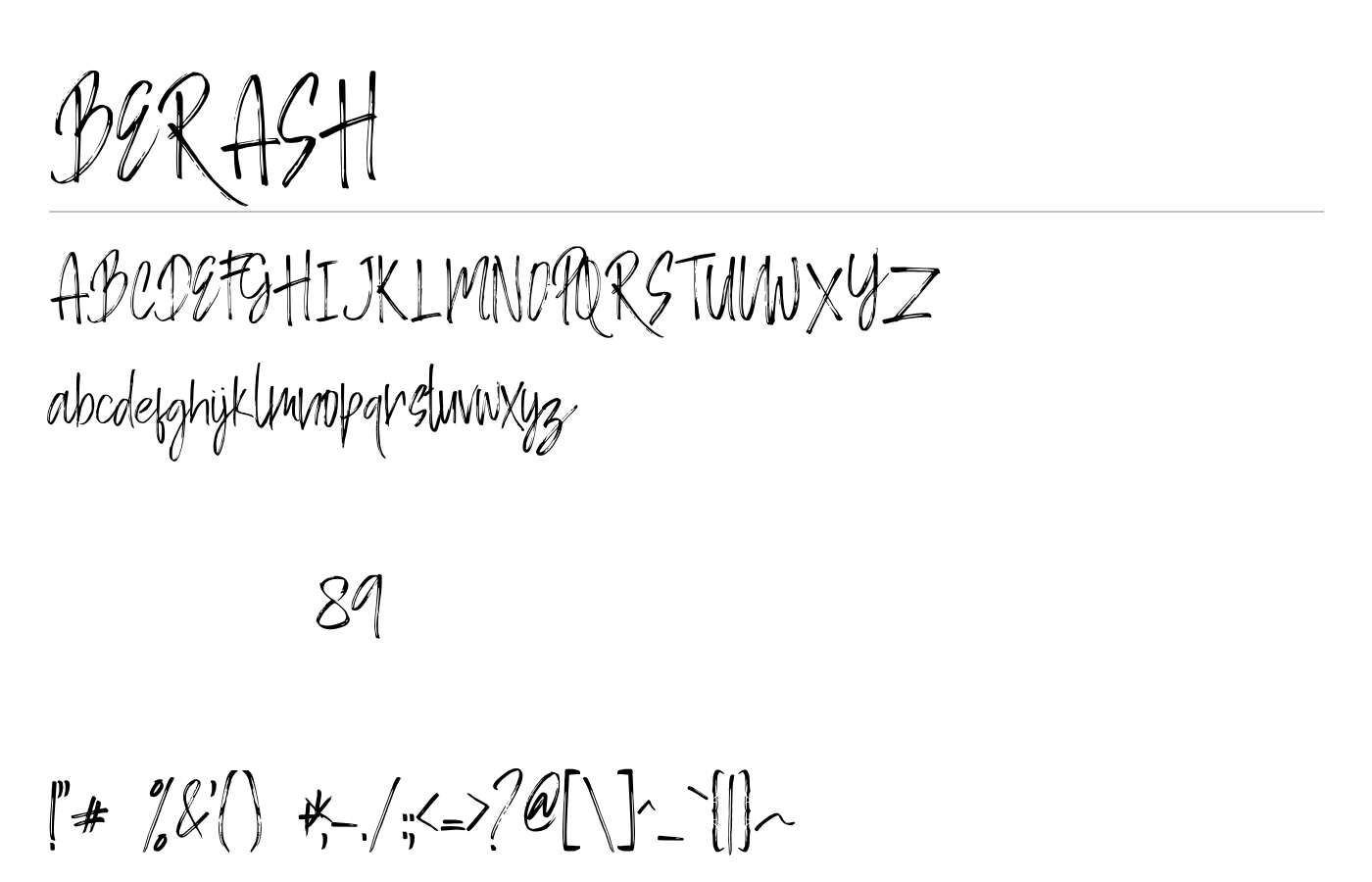
BERASH is a lively, handwritten script font with a tall, narrow structure and high contrast between thin and thick strokes, giving it an energetic and artistic feel. Its irregular, brush-like letterforms and casual yet stylish appearance make it ideal for creative branding, invitations, or editorial headlines where a unique, personal touch is desired. This font communicates a sense of individuality and expressive flair, perfect for designs needing a modern, handcrafted vibe.
BERASH Font